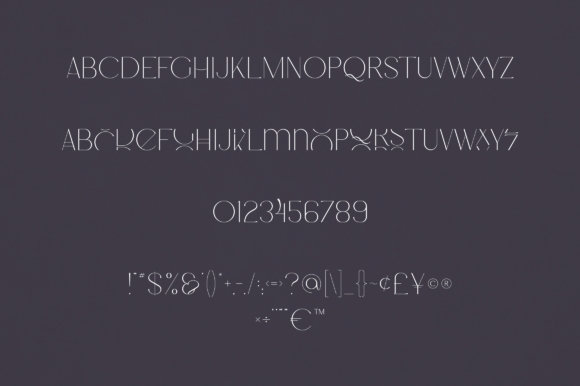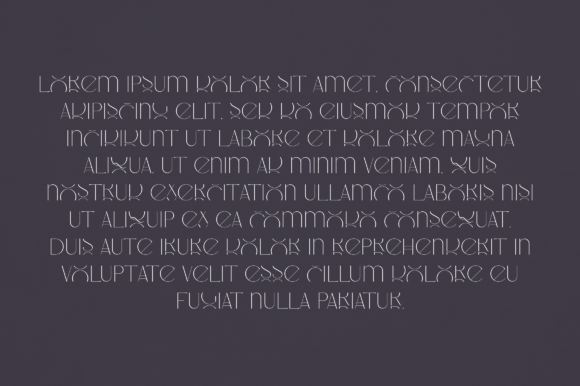
The Designer’s Delight: A Deep Dive into Cosmo Font
I’ll never forget the struggle I faced while working on a branding project for a luxury home goods client. The logo design was almost complete, but I was stuck on finding the perfect font to complement the elegant, modern aesthetic. That’s when I stumbled upon Cosmo Font, and it instantly elevated my design to a whole new level. In this article, I’ll share my experience with Cosmo, its features, and how to make the most of this stunning display font.
An Honest Review of Cosmo Font
What I Love About Cosmo ✨
- 💫 Elegant and versatile design suitable for various projects
- ✅ Extensive range of OpenType features and glyphs
- 🎨 Highly legible, even at smaller sizes
- 🔥 Perfect for creating stunning headlines, logos, and branding materials
While Cosmo Font is an excellent choice for many projects, there are a few minor limitations to consider:
- 🤔 May not be the best fit for body text or lengthy paragraphs due to its display font nature
- ⚠️ Some users might find the font too ornate or elaborate for certain projects
The Story Behind Cosmo Font
Imagine a small, family-owned foundry in Italy, where a team of passionate typographers and designers worked tirelessly to create a font that would capture the essence of elegance and sophistication. Cosmo Font was born from this vision, inspired by the curves and lines of celestial bodies and the beauty of the night sky.
Q: What makes Cosmo Font so versatile?
A: Cosmo Font’s versatility comes from its elegant design, extensive OpenType features, and highly legible letterforms, making it suitable for a wide range of projects.
Q: Is Cosmo Font suitable for body text?
A: While Cosmo Font is an excellent display font, it might not be the best choice for lengthy body text due to its elegant, yet elaborate design.